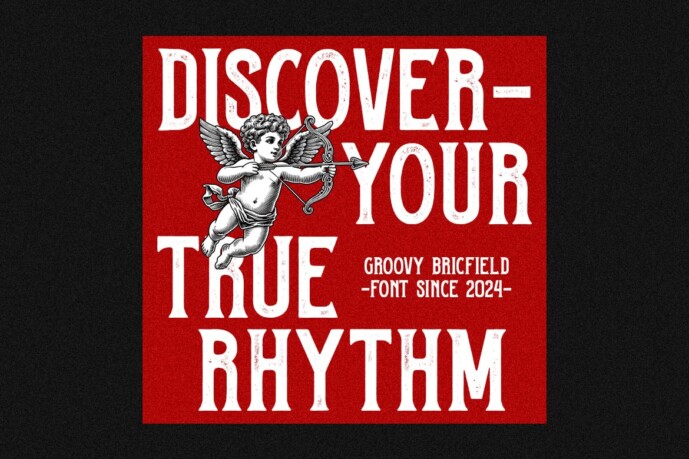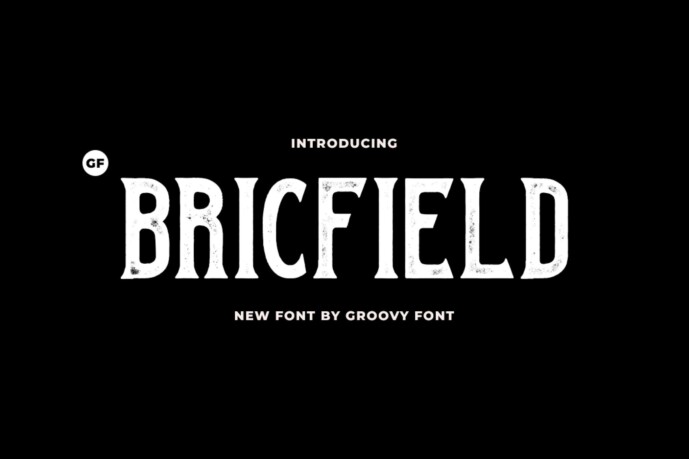
GF Bricfield Font
GF Bricfield Font is a coarse serif font that features a textured, retro, and vintage aesthetic.
The rough texture incorporated into the Serif pattern gives this font a weathered and aged look, adding depth and character to its overall appearance.
GF Bricfield recalls typographic styles from past eras and evokes a nostalgia for vintage design elements. This font is ideal for projects that aim to convey a sense of history, authenticity, or classic charm.
Whether used for branding, packaging, editorial design or signage, GF Bricfield brings a touch of retro elegance and timeless beauty to any composition.